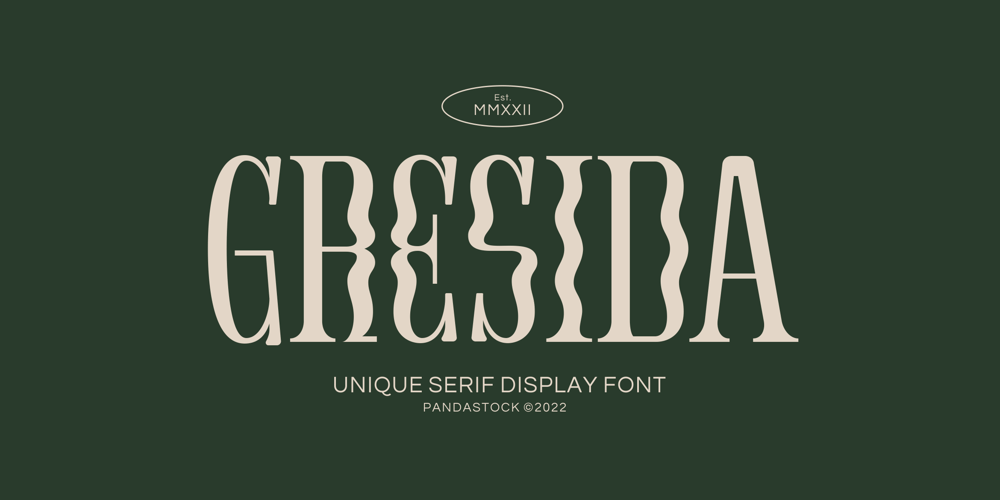
Gresida Font Family was designed by Aulia Savira Putri and published by Imoodev. Gresida contains 1 styles and family package options. Gresida is elegant serif fonts, this typeface has smooth curves and a visual style a can embodies charm and elegance in every lettering, making your work look stunning and attractive.A versatile font that works in both large and small sizes, suitable for a wide variety of projects such as a display for headings, logos, invitations, branding, magazine, photography, card, product packaging, product mockup, mugs, posters, labels, signatures, editorials, art deco, any type of advertising purpose.